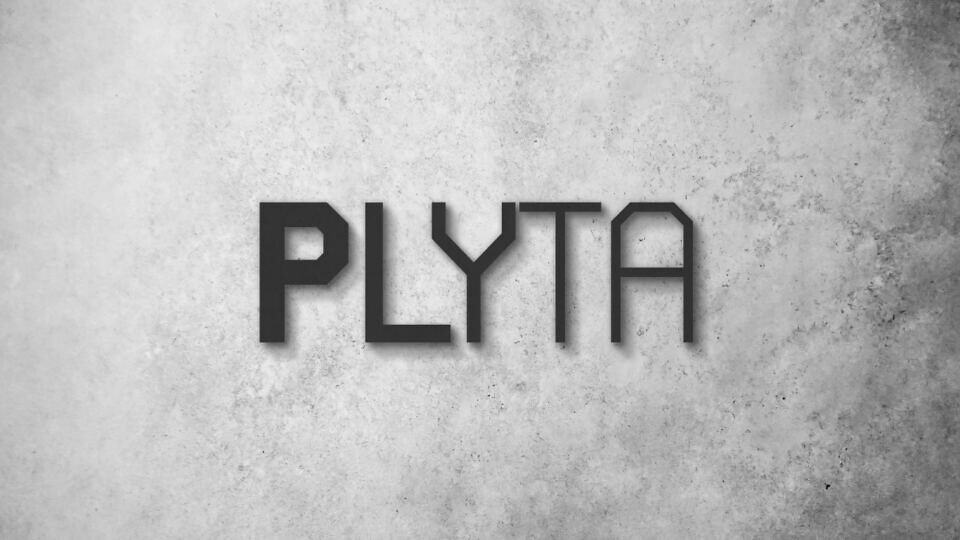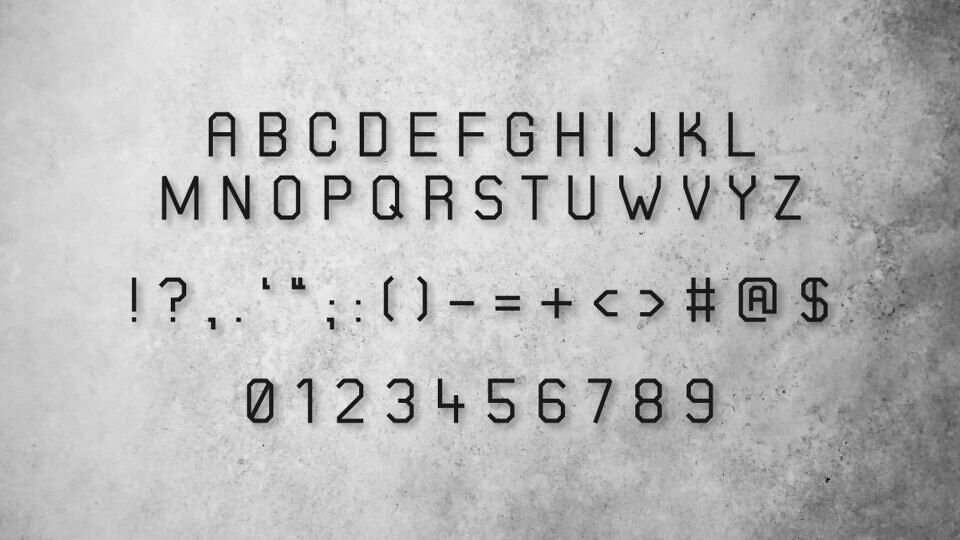
Plyta Font Family
Plyta is a modern, geometric typeface designed by Szymon Furjan. Characterized by a distinctively blocky aesthetic, this versatile font family includes five weights—ranging from Extra Light to Black—making it an excellent choice for bold headlines, structural design projects, and clean, impactful layouts.